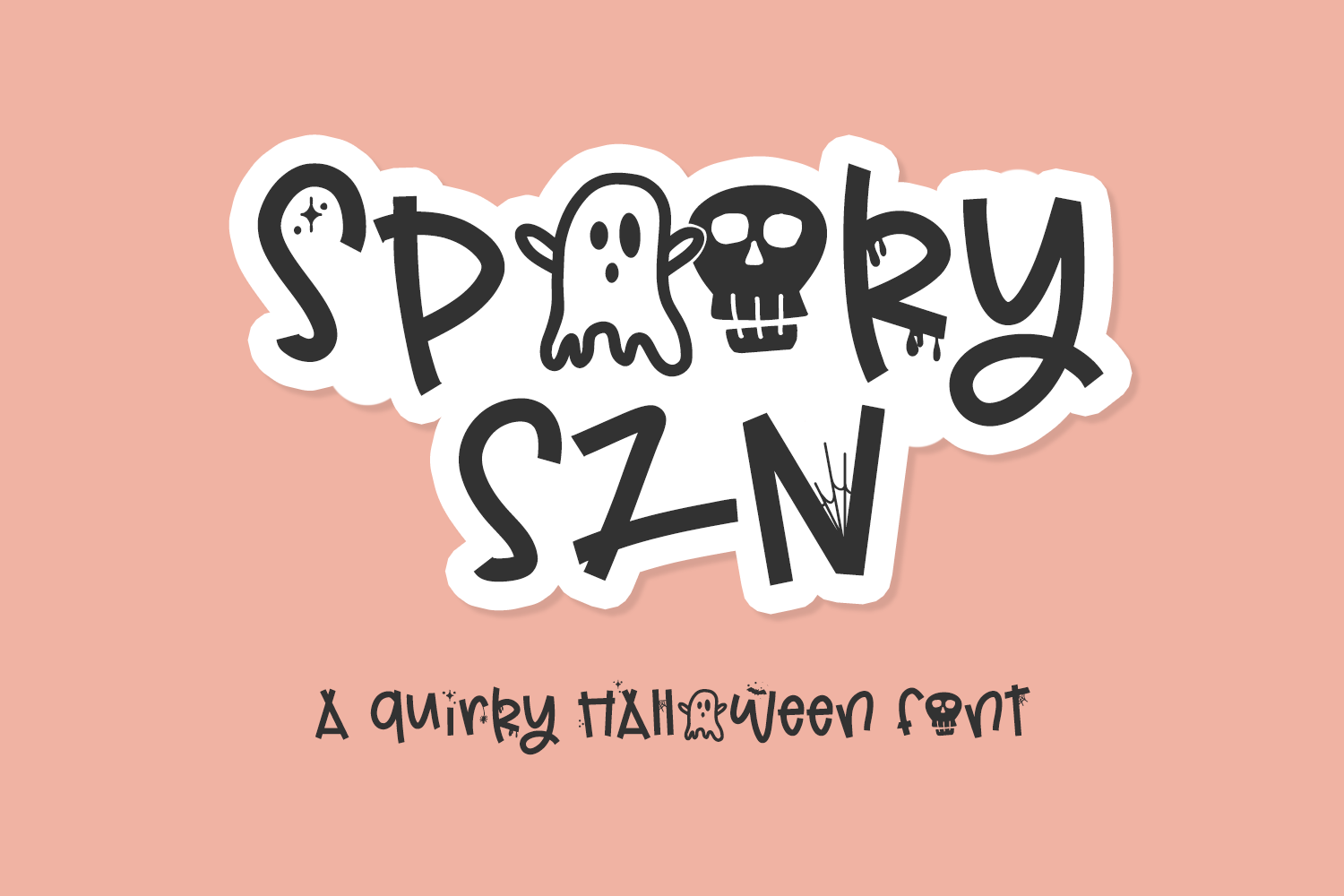
Spooky Szn - A Fun Halloween Font
Introducing Spooky Szn, a Halloween-themed decorative font. Spooky little details like spiders, spider webs, bats, blood drips, pumpkins, skulls, and magical stars adorn letters in this delightfully playful font. Use Spooky Szn as a mixed-case font to perfect your creepy project.
Spooky Szn includes:
- full uppercase & lowercase letters
- numbers + punctuation
- 7 alternates
- 10 ligatures - OO, bb, dd, ff, gg, ll, mm, oo, ss, tt